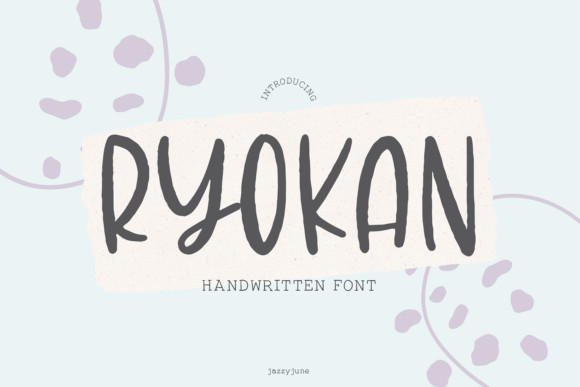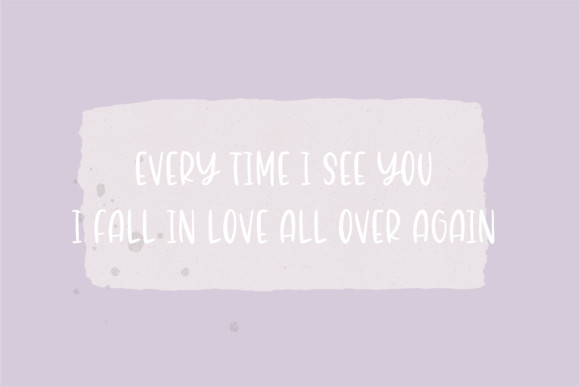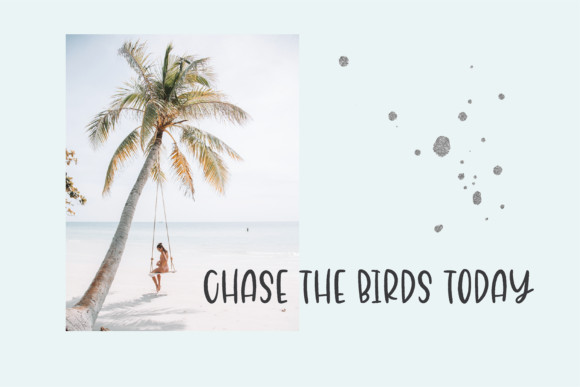
Ryokan Font
Ryokan is a fresh and relaxed handwritten font. It is perfect for poster designs, book covers, merchandise, fashion campaigns, newsletters, greeting cards, album covers and so much more!